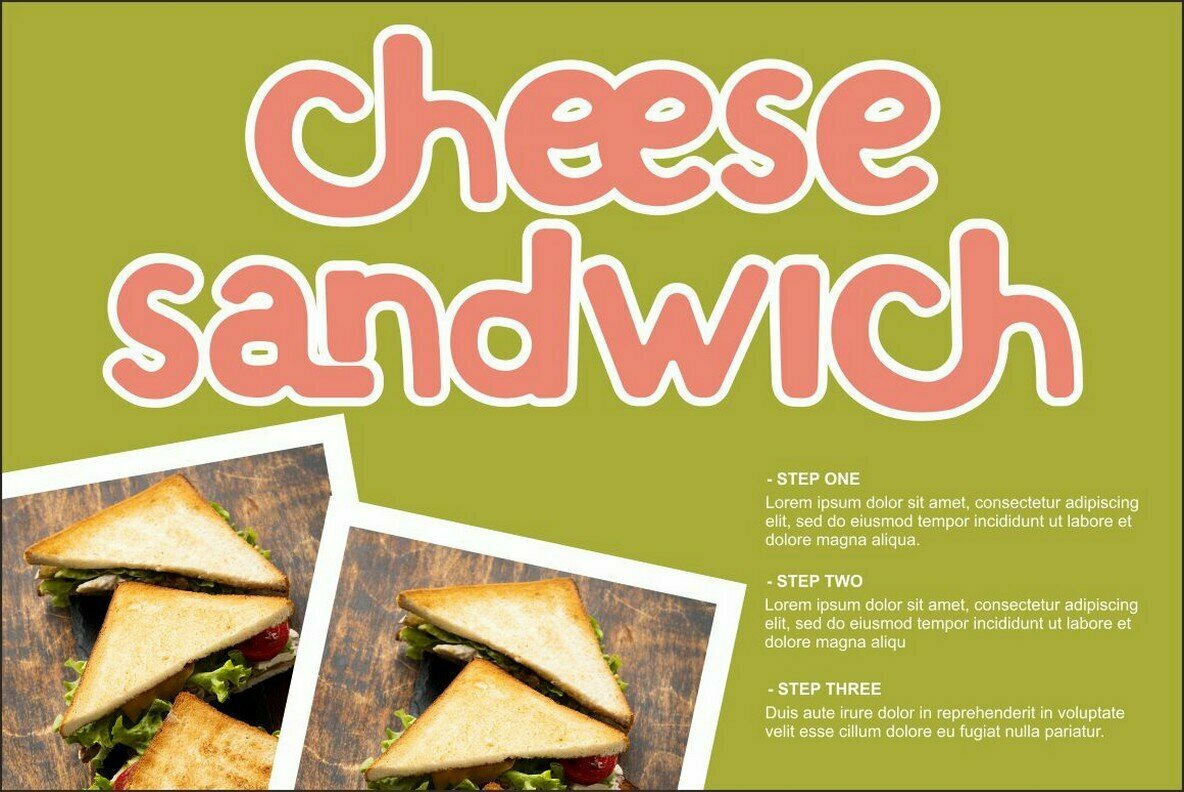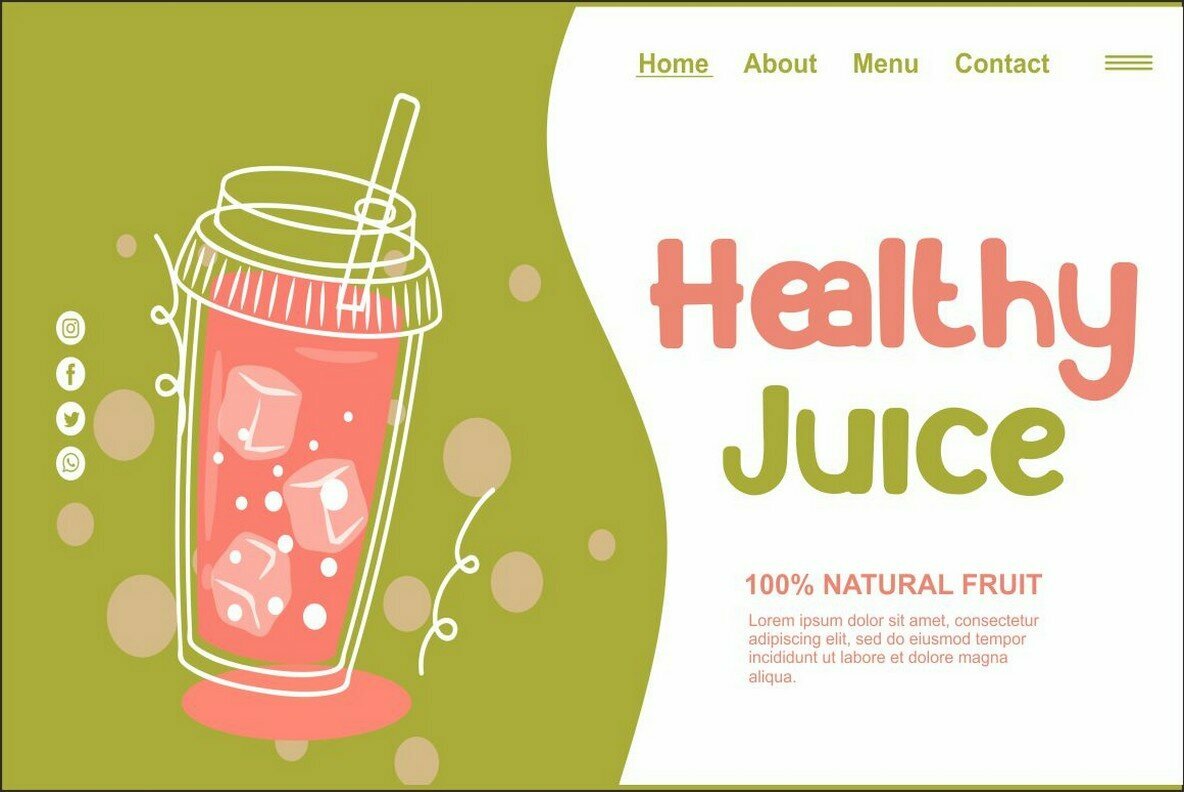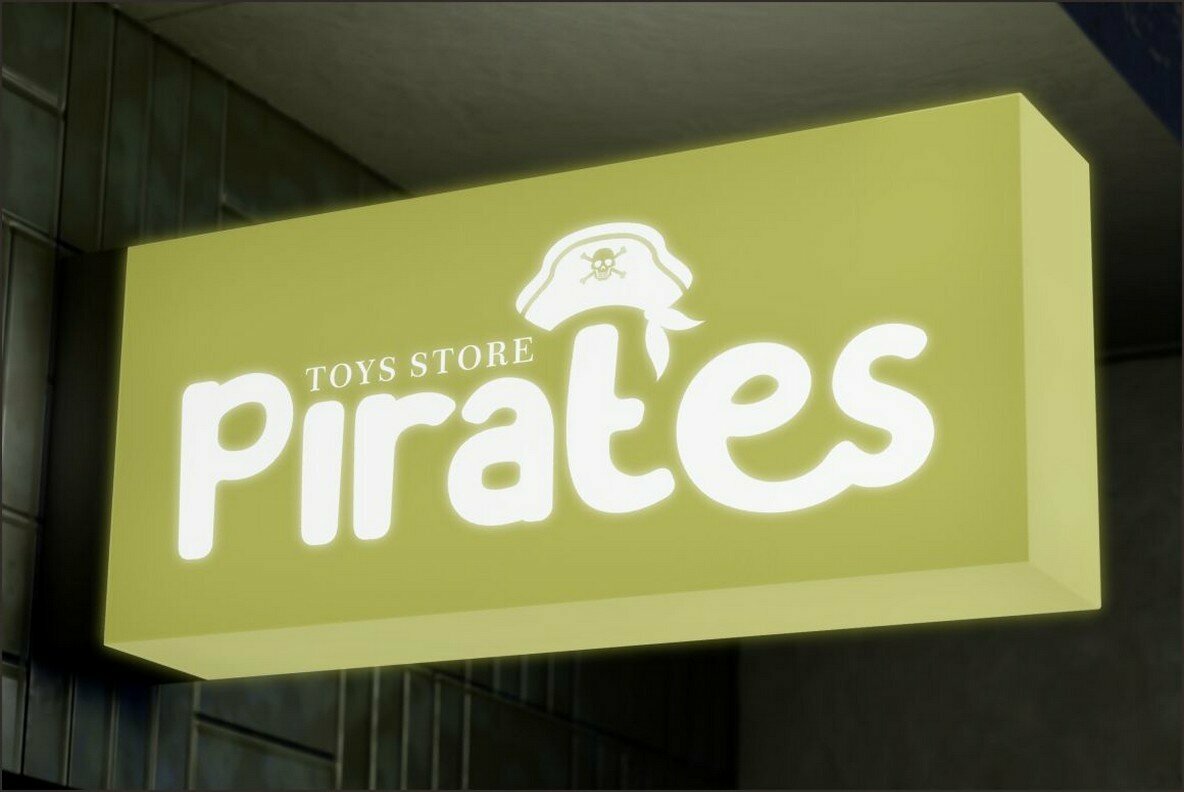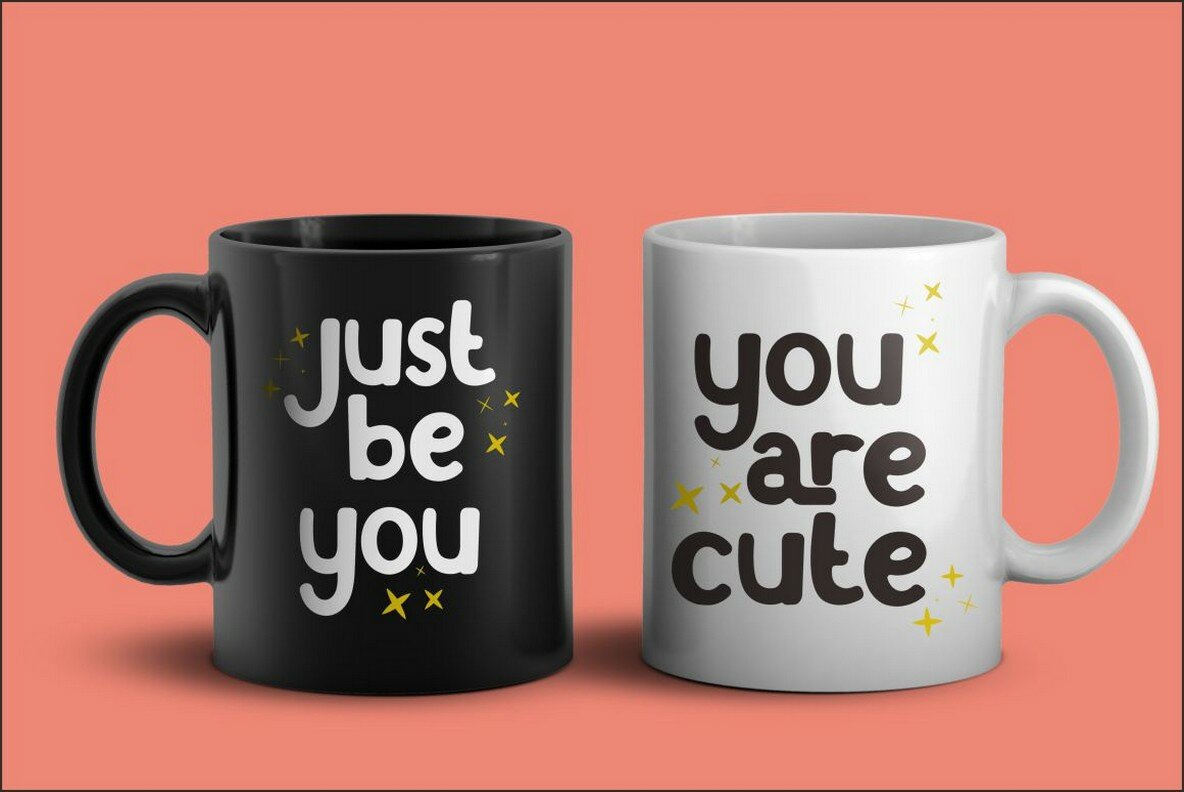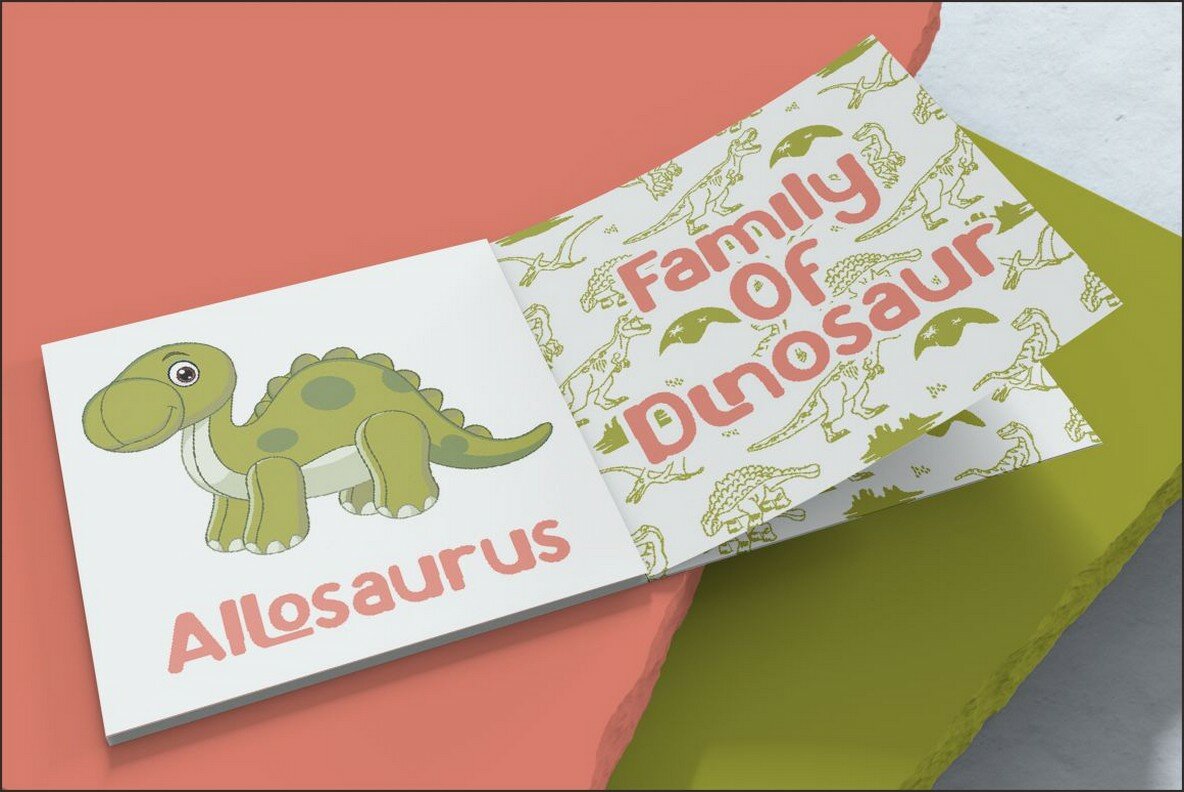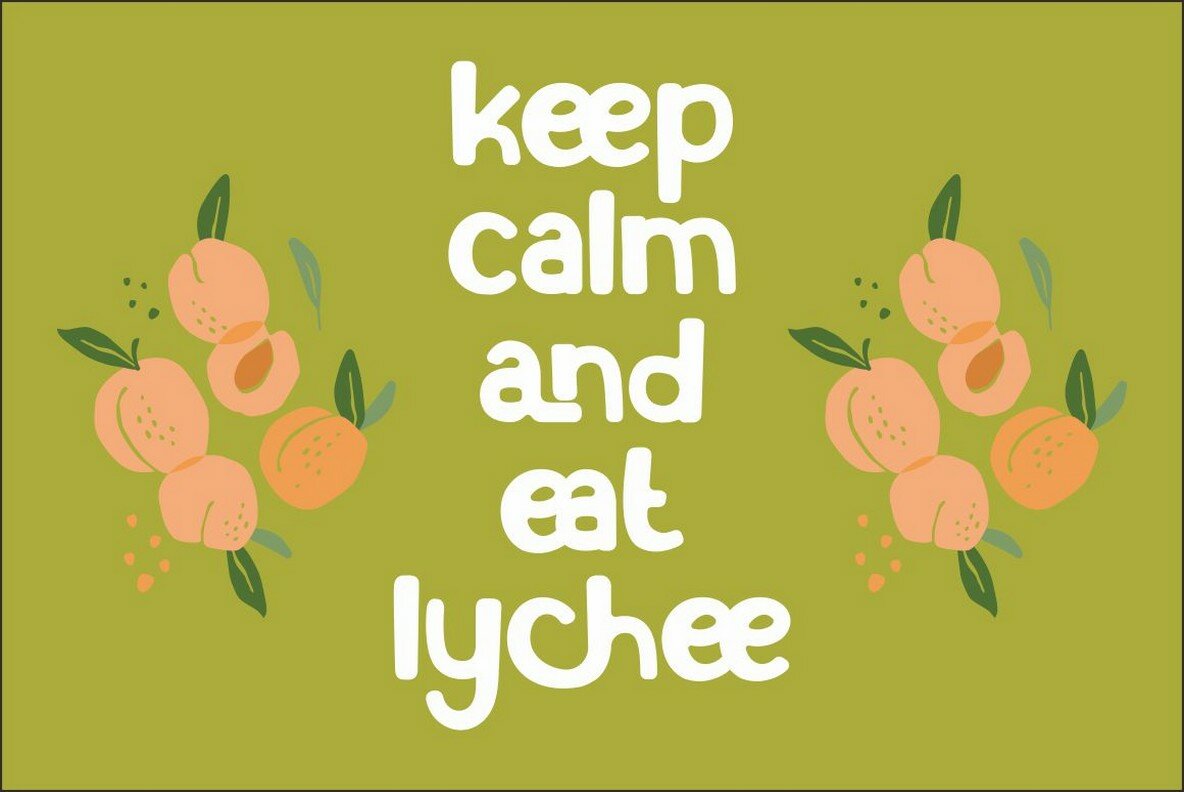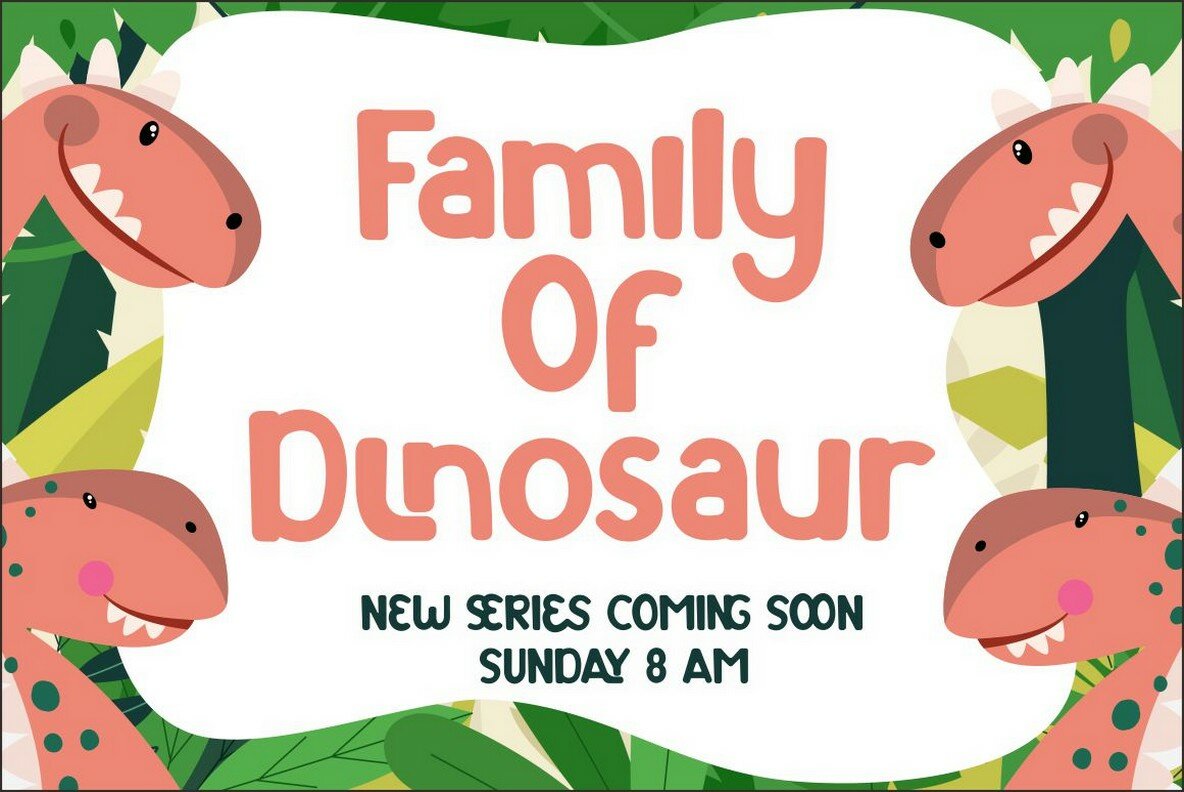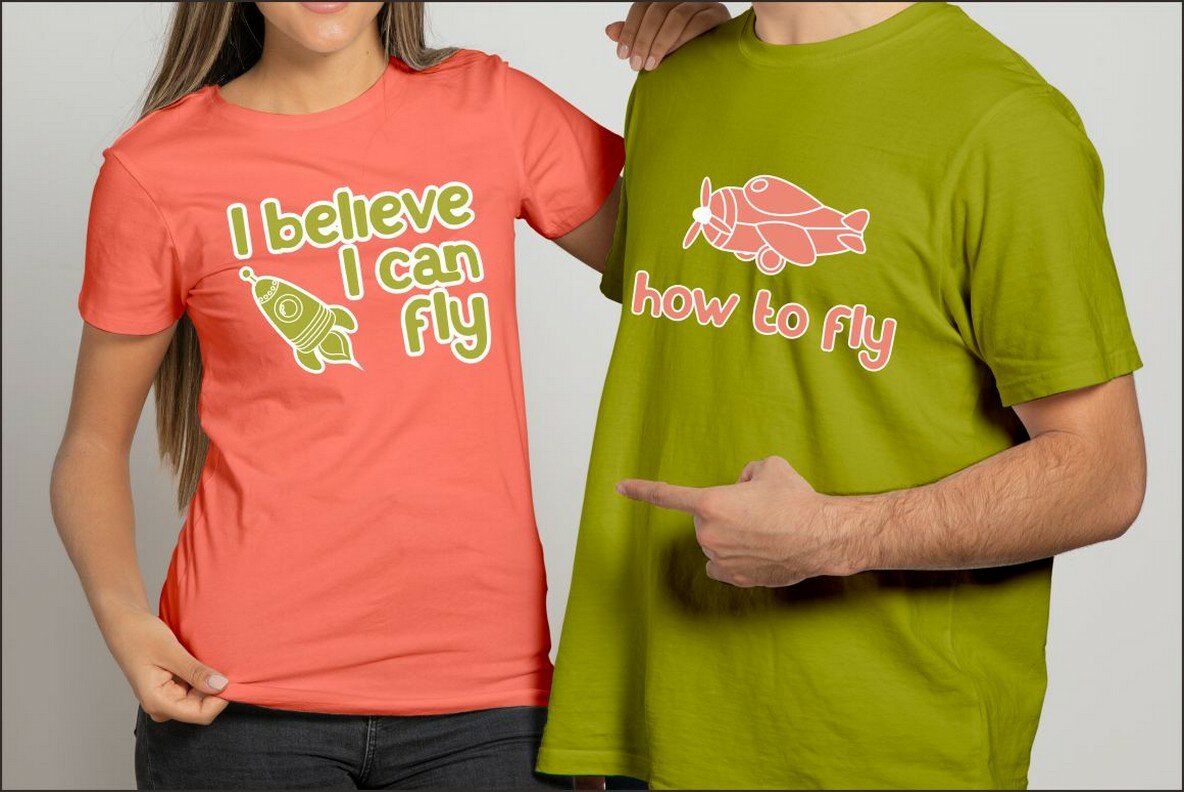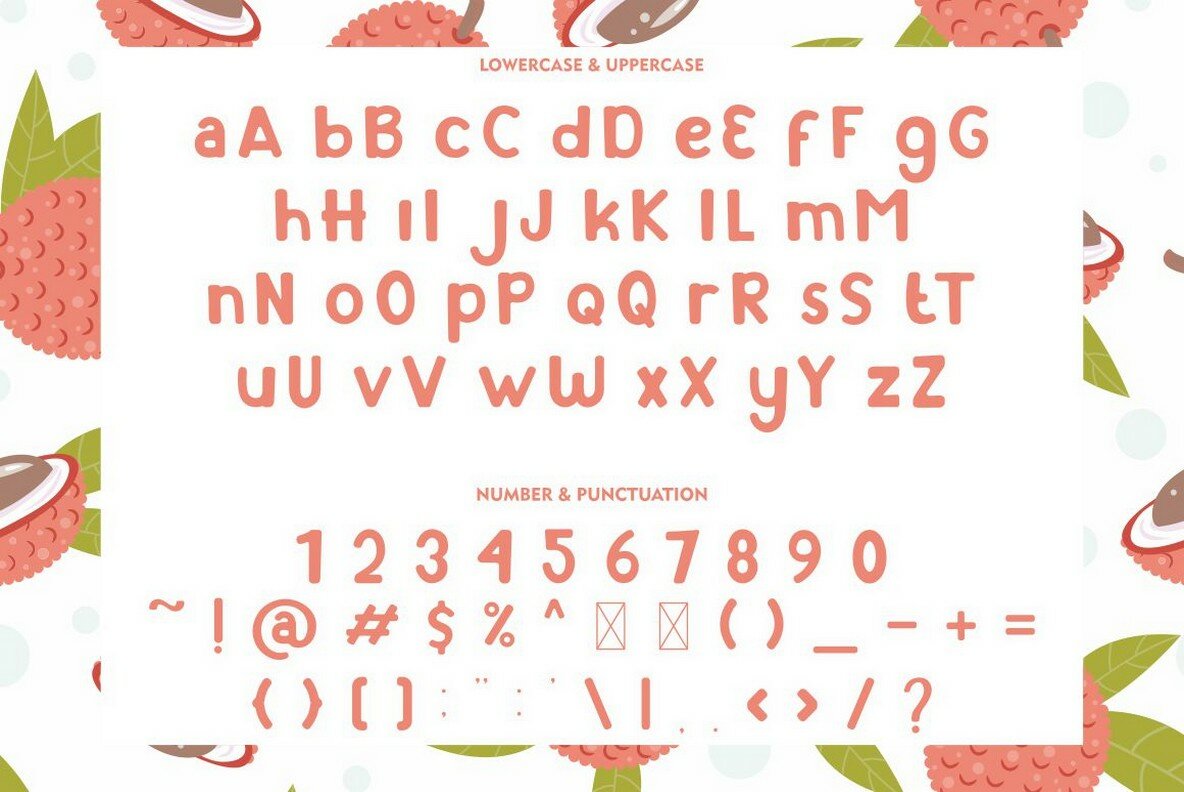
Lychee Farmland Font
Lychee Farmland
Lychee Farmland is a delightful sans serif font brimming with character and charm. Designed with a warm, inviting aesthetic, this typeface is an excellent choice for a wide range of projects. Whether you're creating logos, greeting cards, or posters, its versatility shines through, adapting seamlessly to various styles and audiences, regardless of age. With an impressive collection of 90 ligatures, and full multilanguage support, Lychee Farmland enhances creativity and ensures your designs are distinctive. Its compatibility across MAC and Windows, as well as popular applications like Procreate and Cricut, adds to its practicality, making design work accessible and enjoyable.Lychee Farmland: Quirky and Playful Sans Serif